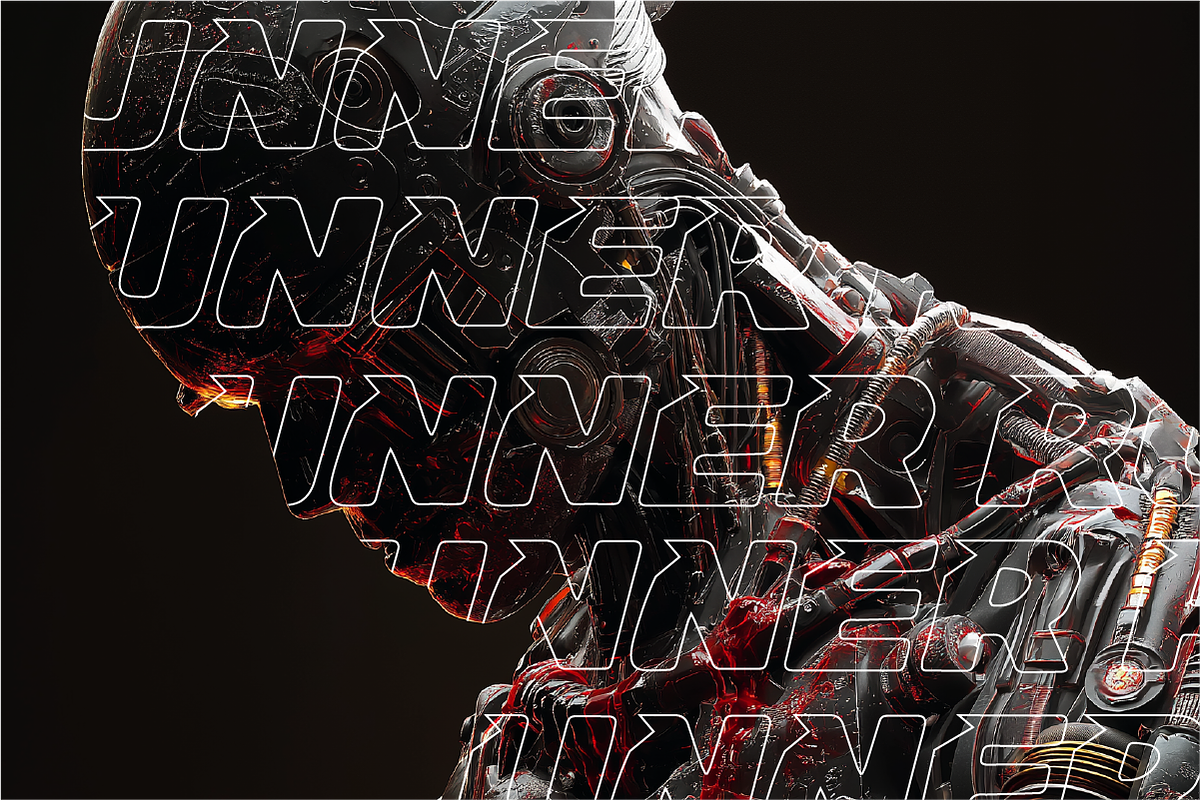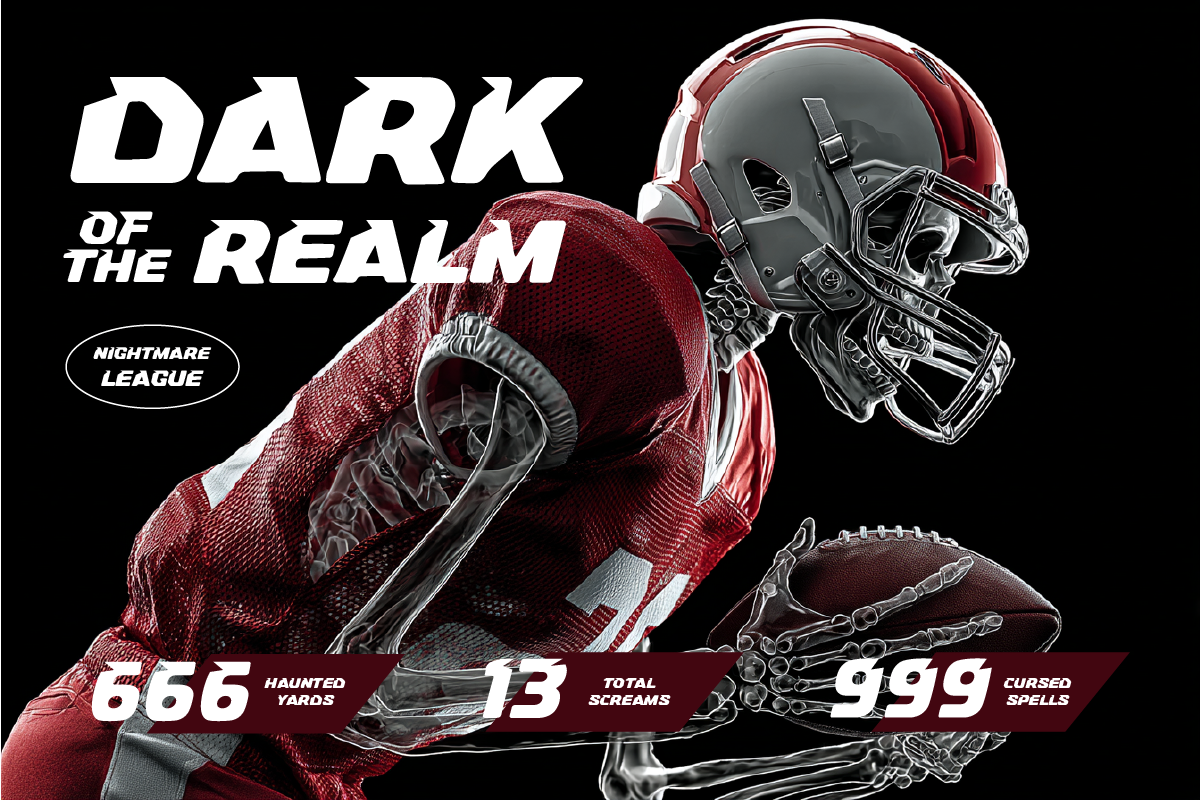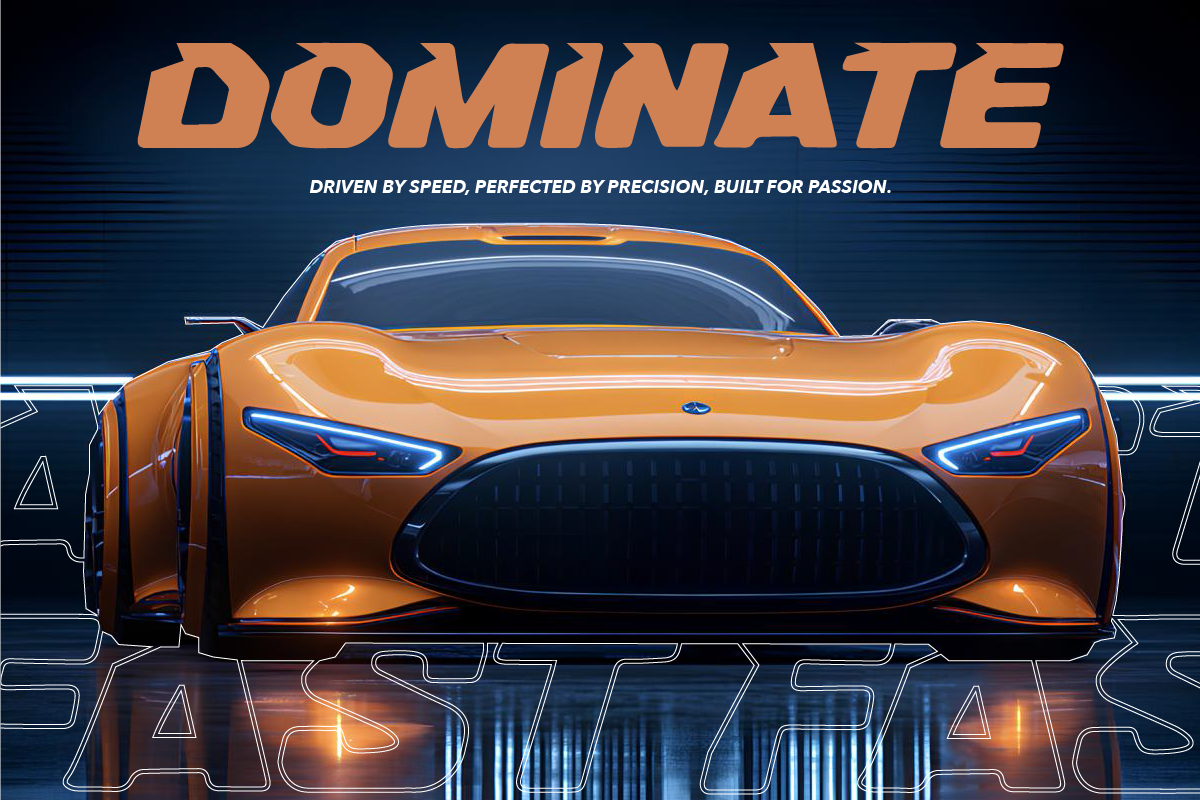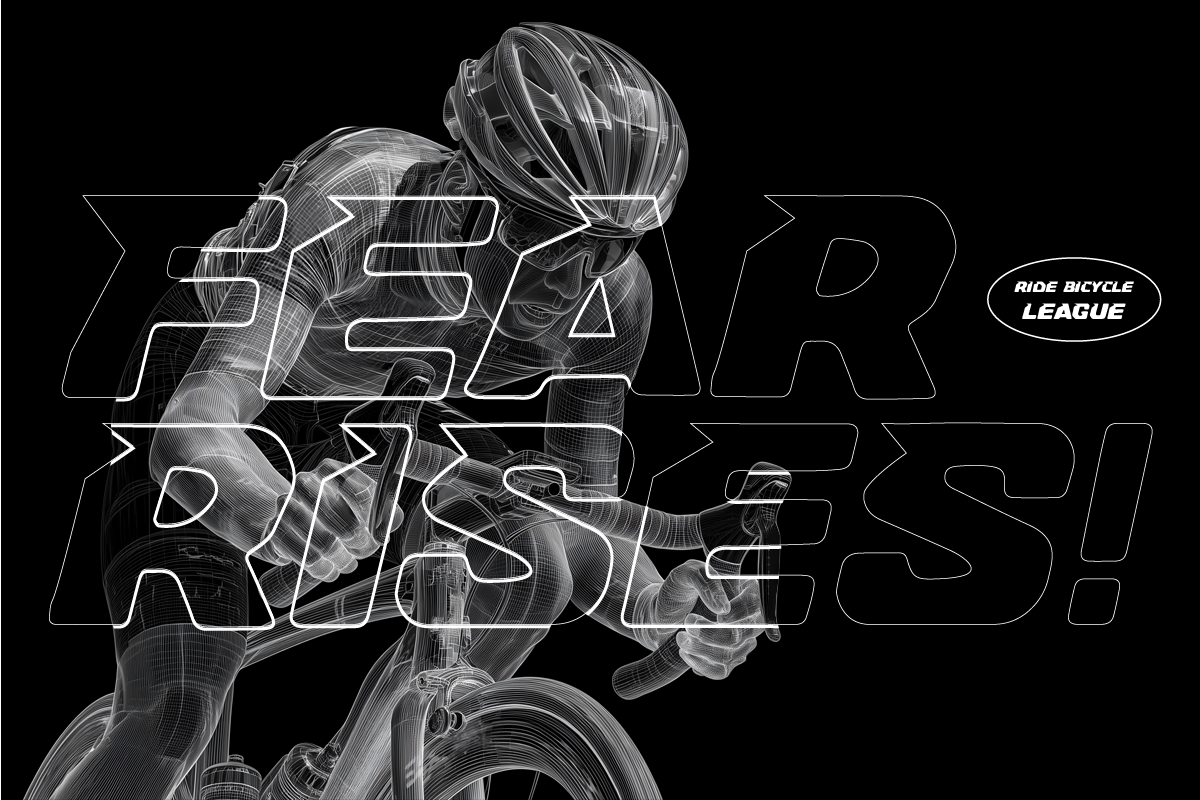
Nitrazon – Modern Futuristic Speed
Nitrazon is a modern futuristic font with a bold, fast, and sporty design inspired by racing and technology. Perfect for automotive branding, esports logos, gaming titles, posters, and any creative project that needs a strong sense of speed and power.